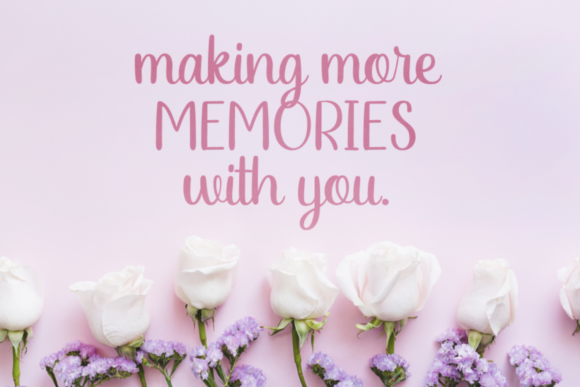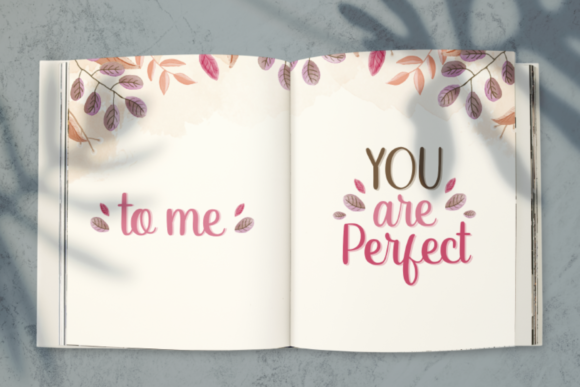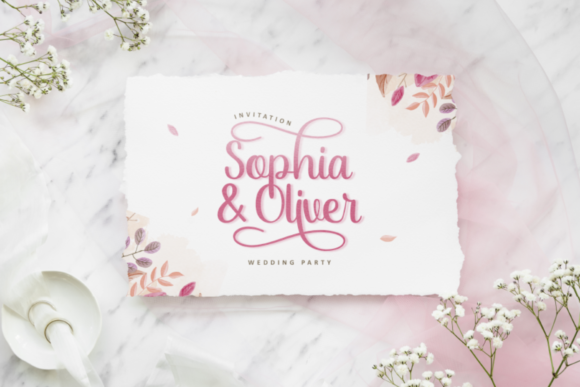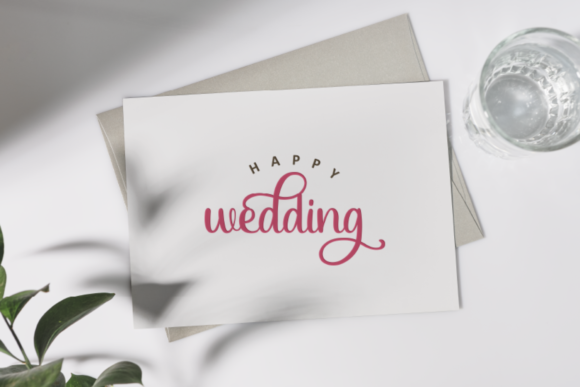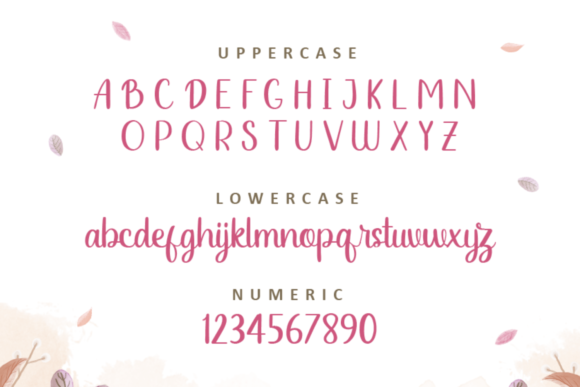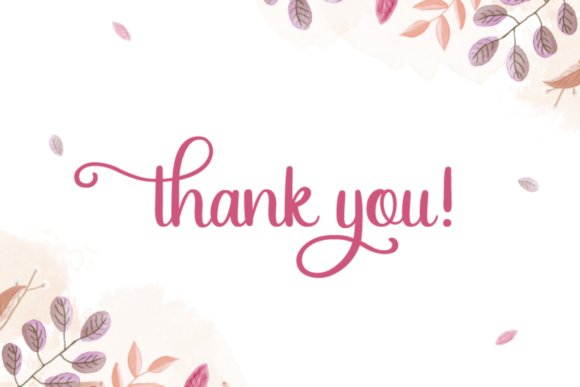
Sophia & Oliver Font
About Sophia & Oliver Font
Sophia & Oliver is a lovely script font featuring charming, playful characters that seem to dance along the baseline. Add this font to your most creative ideas, and notice how it makes them stand out!